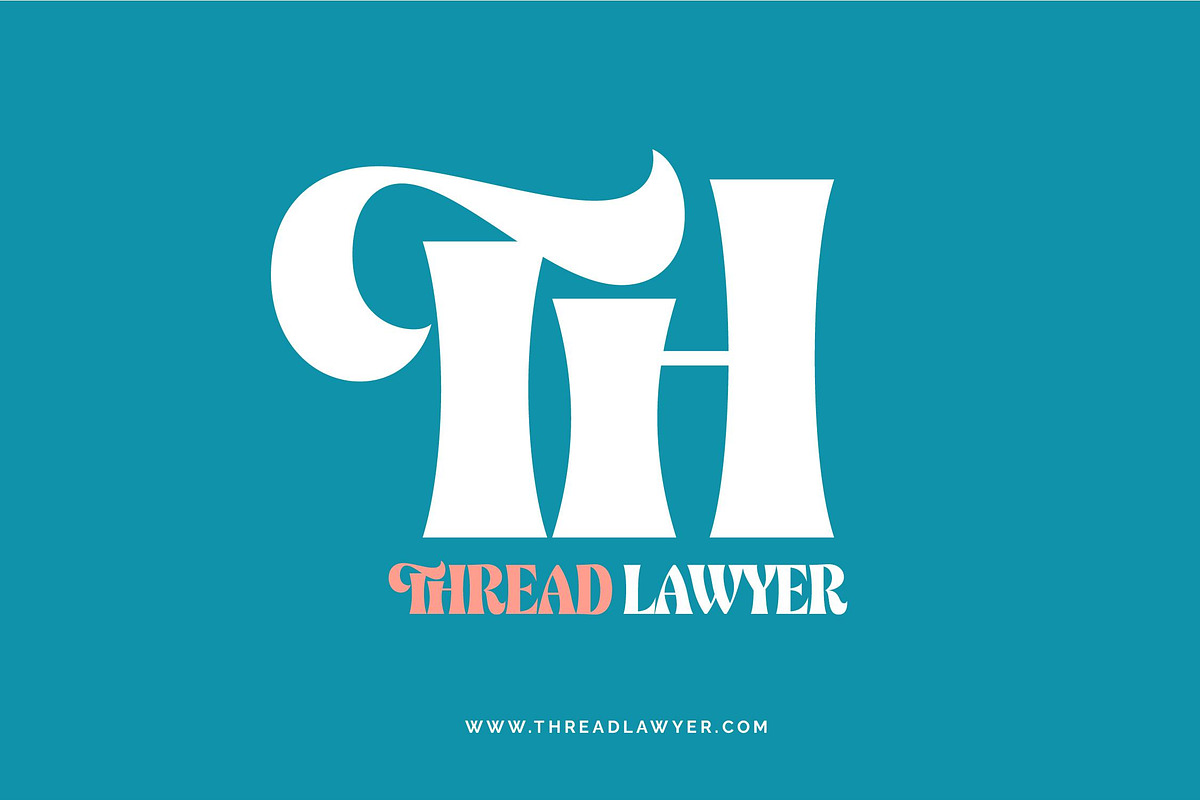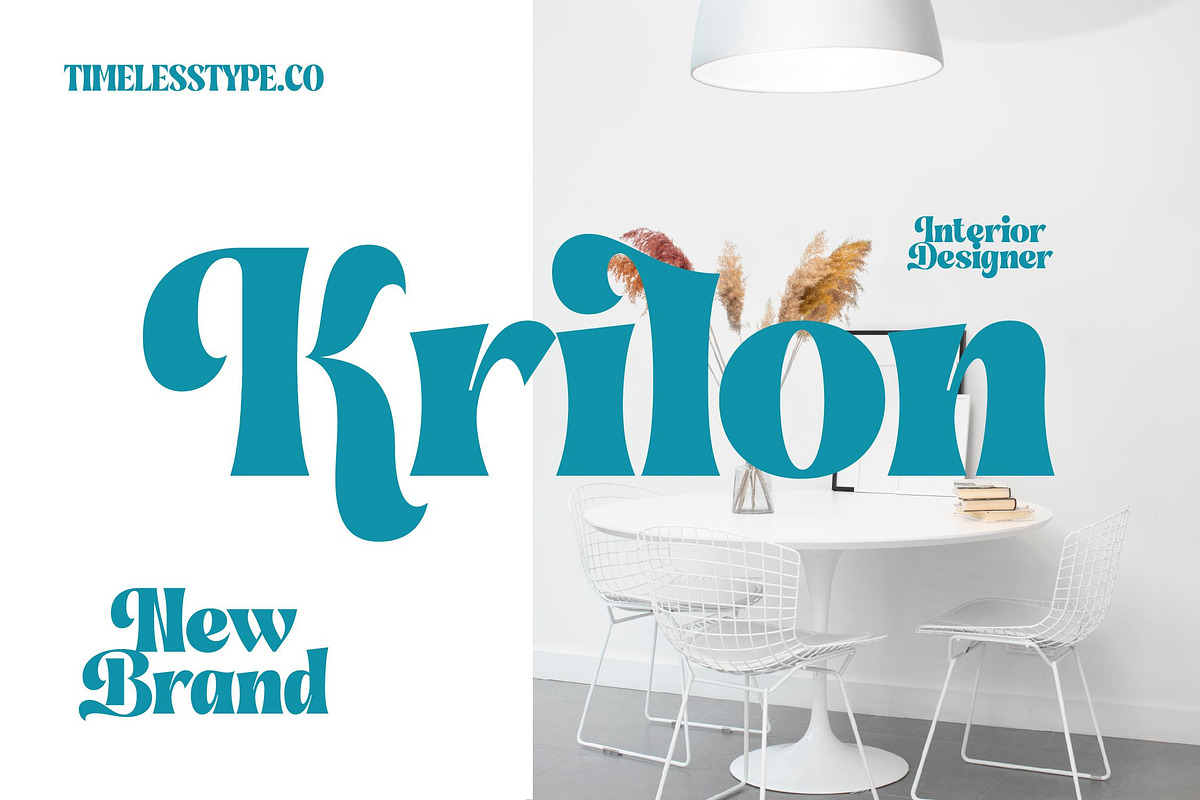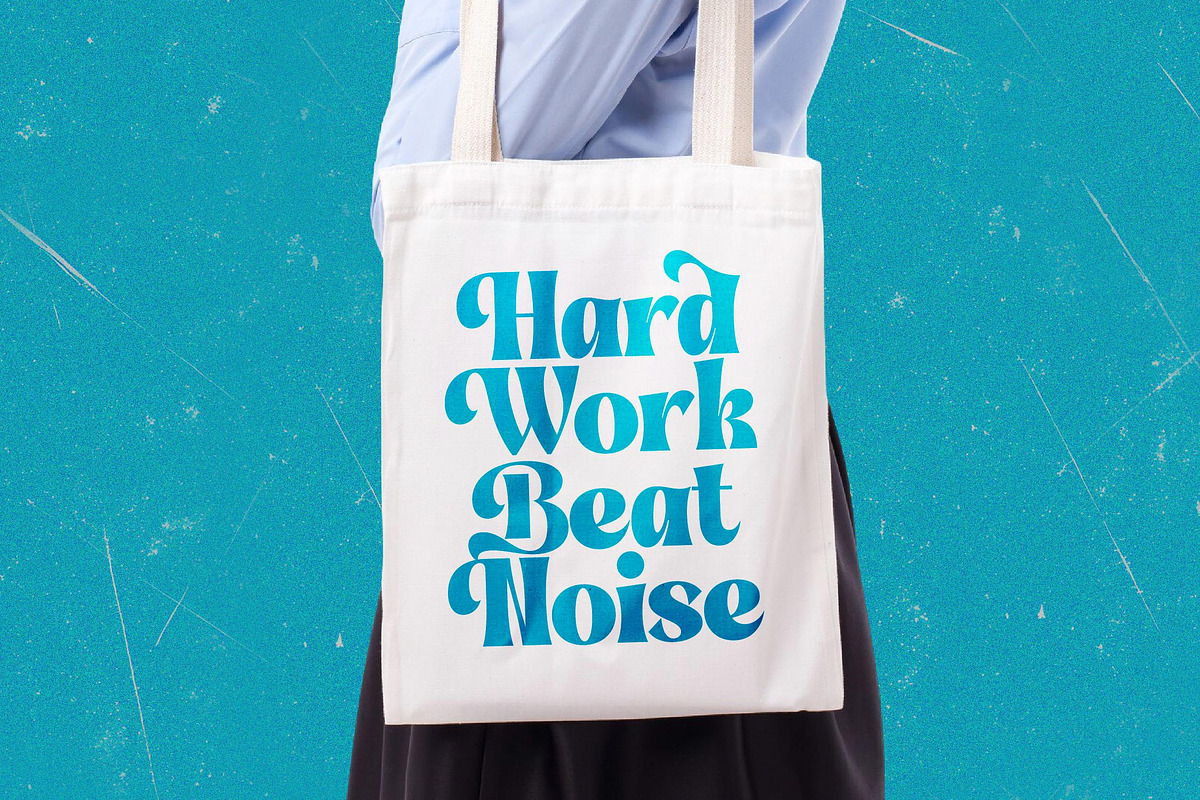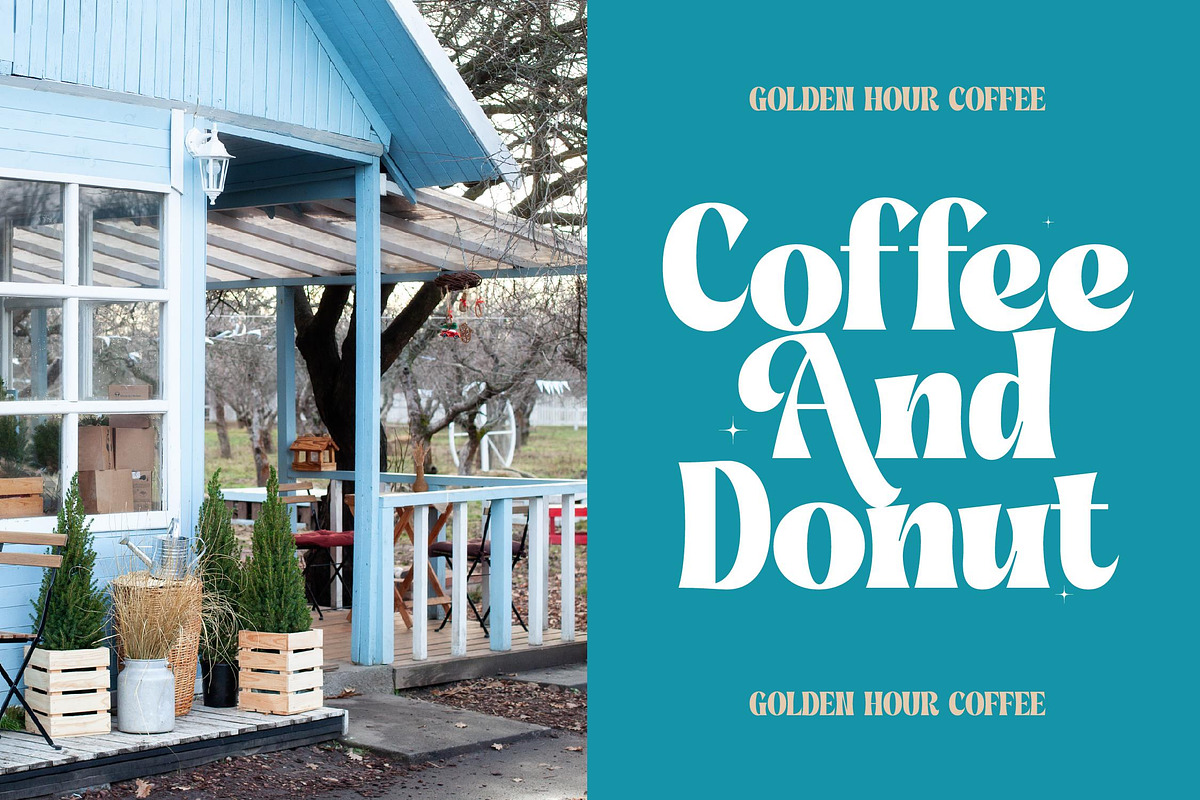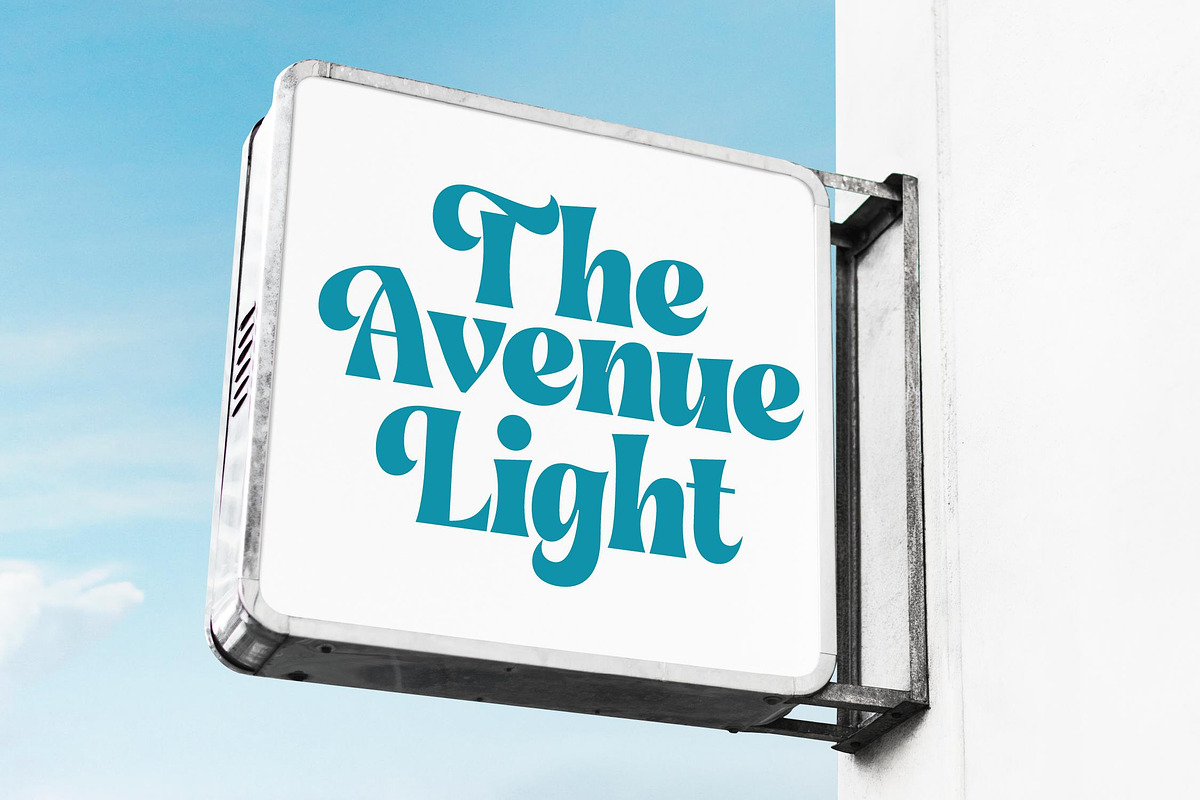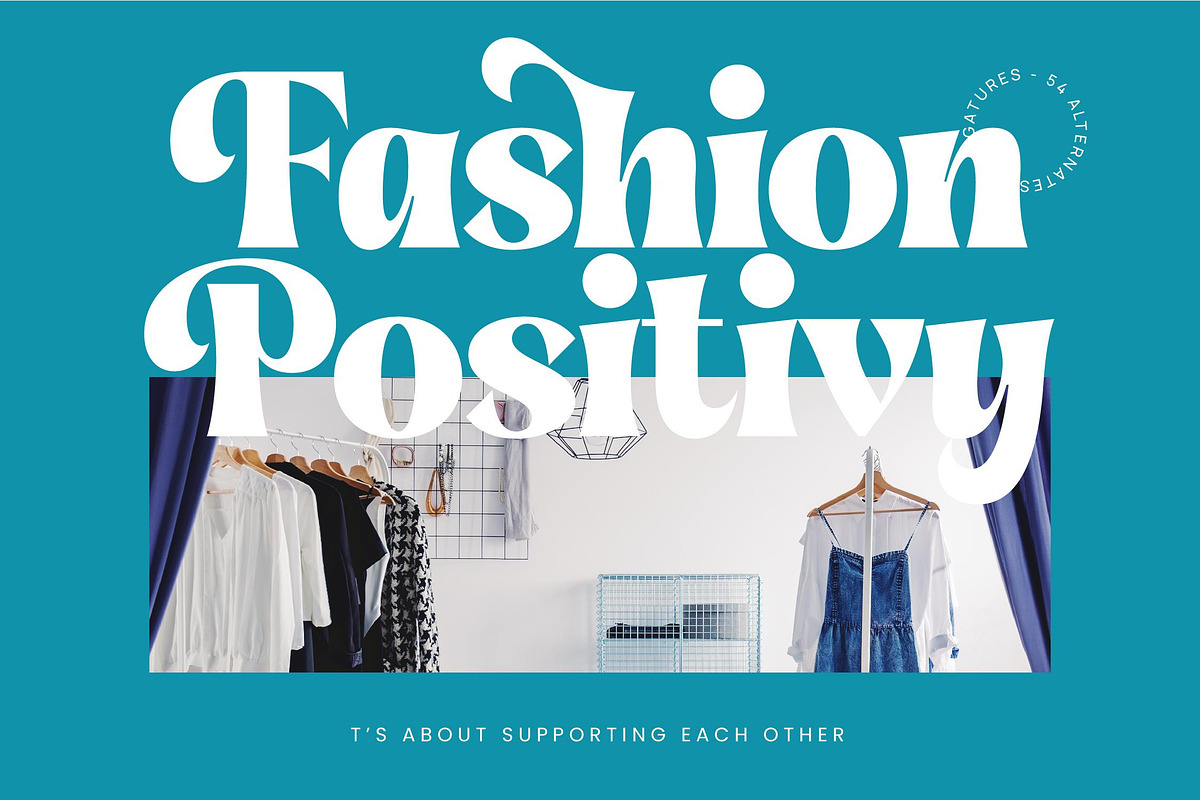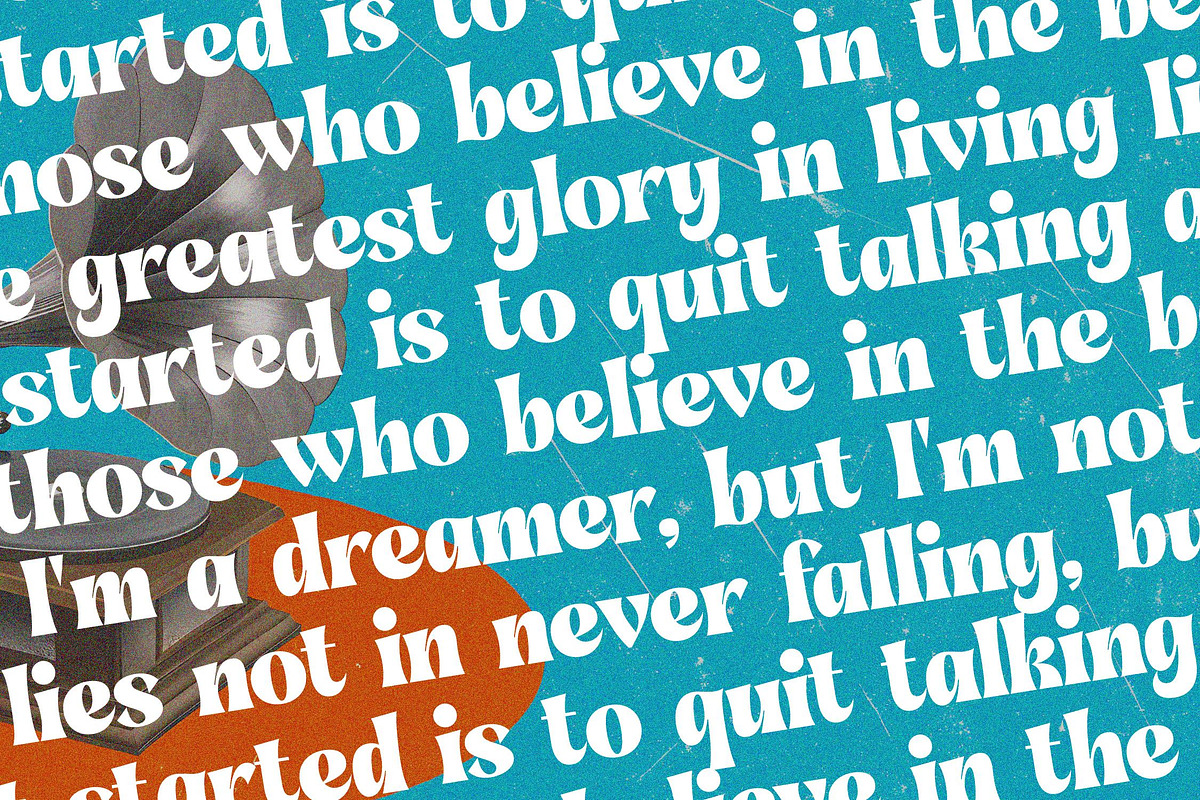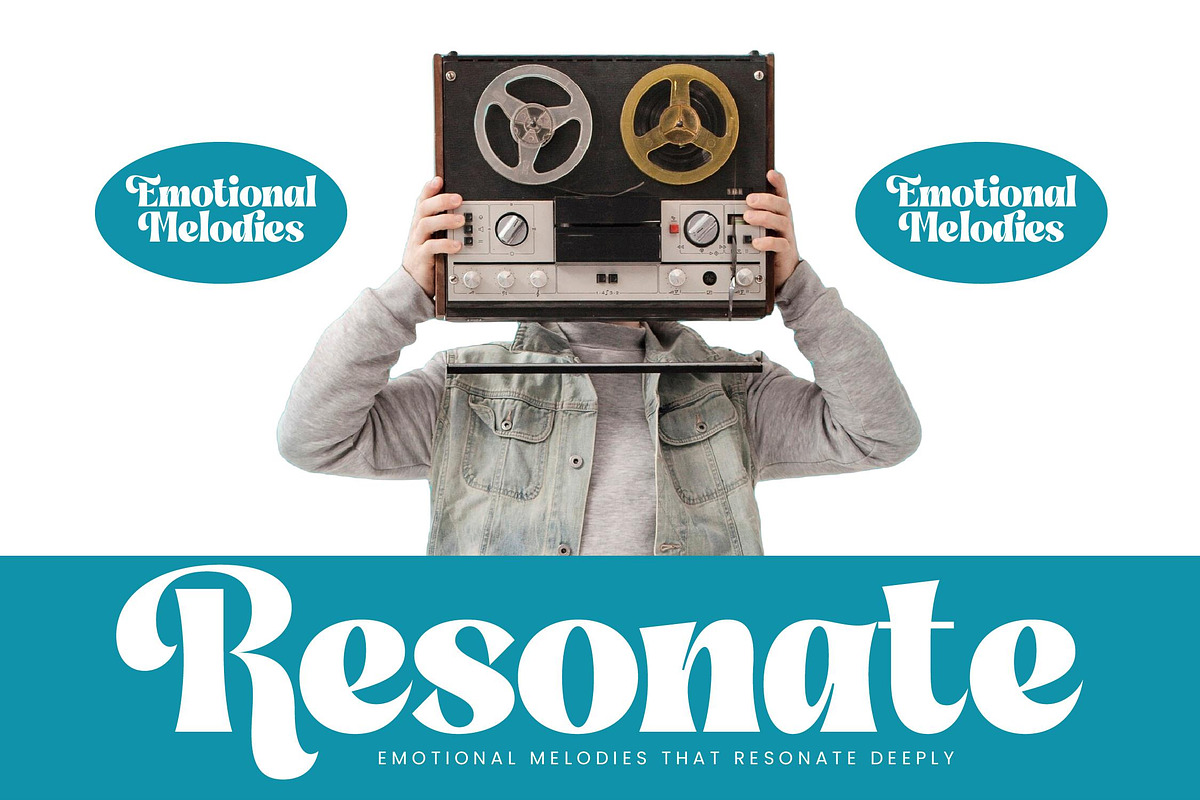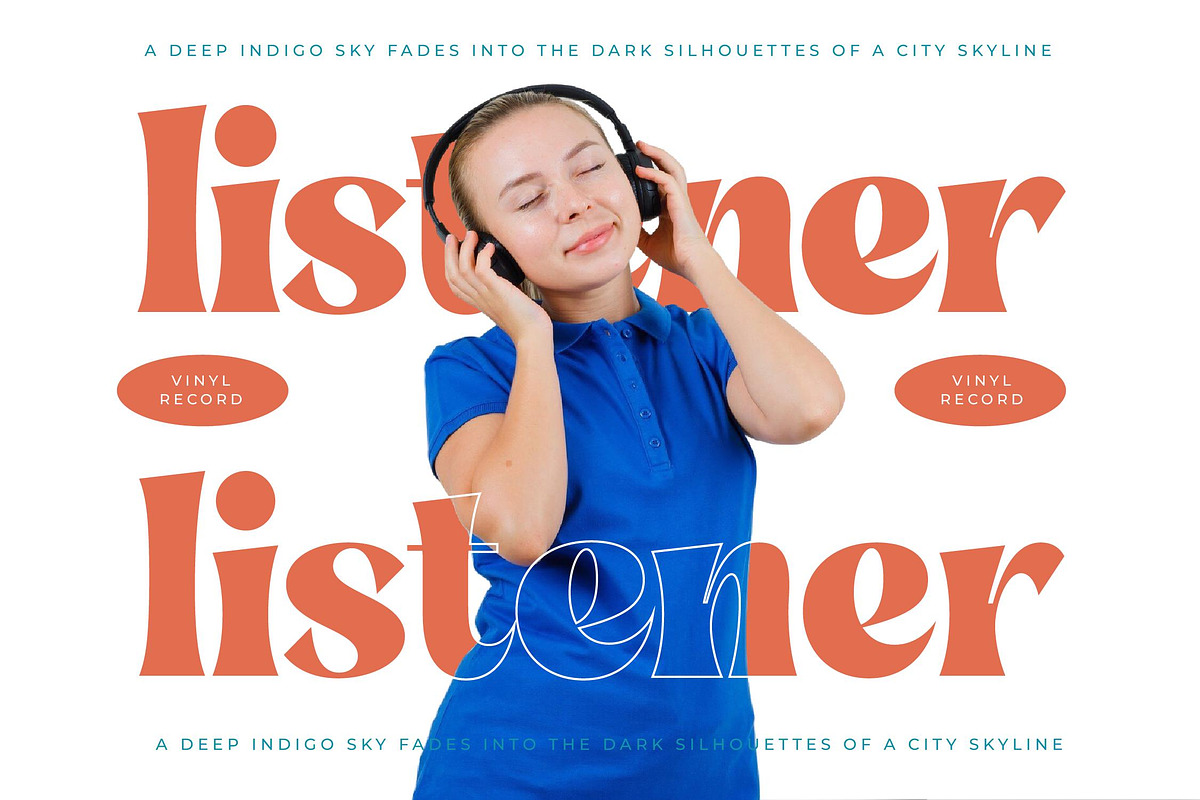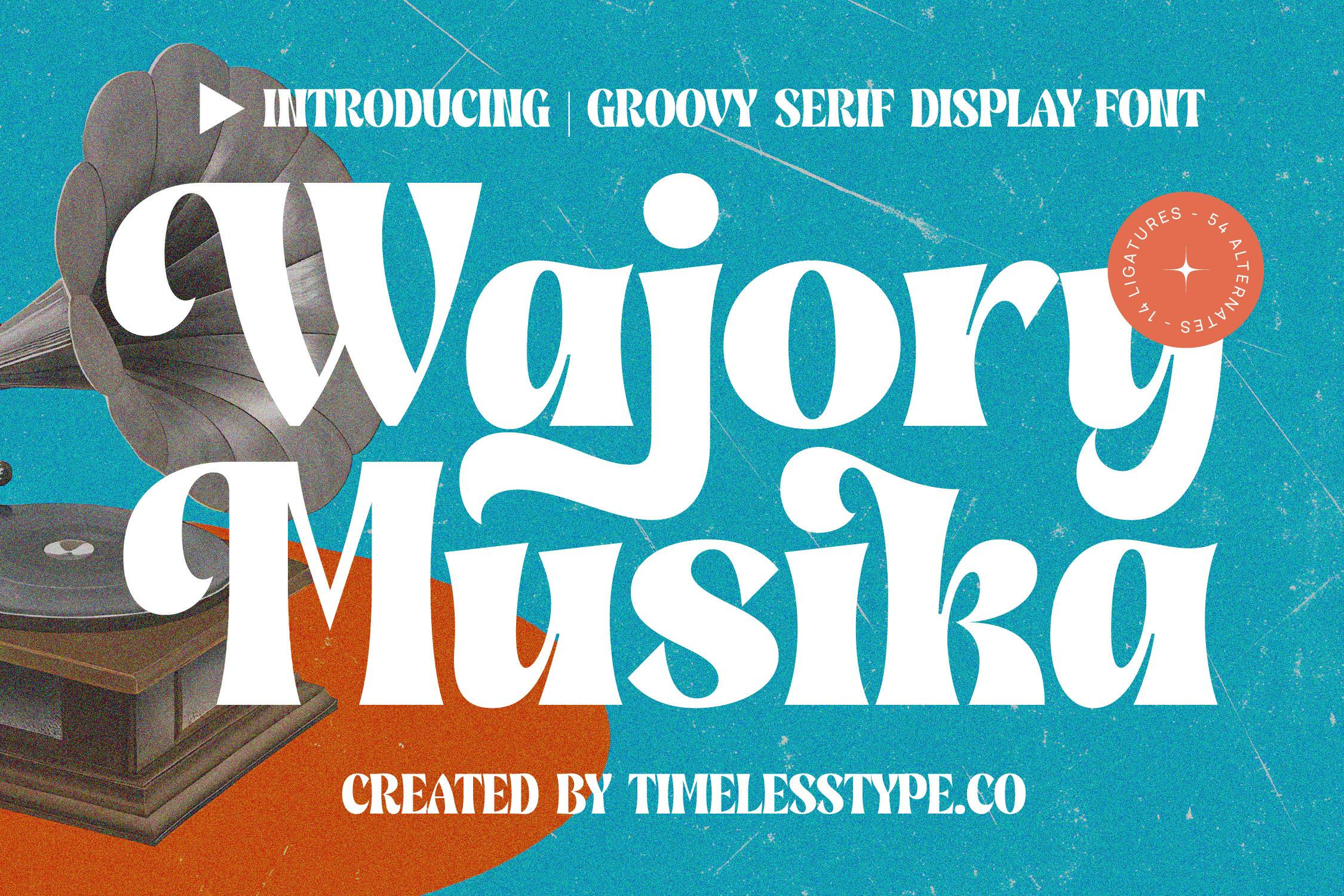
Wajory Musika Groovy Serif Font
Meet Wajory Musika, a rhythm-infused masterpiece that dances across the page with unparalleled grace and vintage soul. It is the ultimate expression of sophisticated nostalgia, designed to turn every headline into a melodic visual experience.
Inspired by the golden era of vinyl records and the groovy curves of the 1970s, this typeface captures the warm, crackling energy of a spinning gramophone. Its fluid lines and bold presence evoke the timeless charm of retro posters and high-fidelity aesthetics, blending classic musicality with contemporary flair.
This modern serif display demands attention with its striking high-contrast serif design and elegant, flowing forms. Engineered for branding impact, it functions as a high-end editorial font that bridges the gap between playful movement and luxury typography.
Perfectly aligned with the current modern serif trend, this typeface answers the call for character-driven typography in a sea of minimalism. It sits at the forefront of editorial display fonts, offering designers a unique way to inject personality and vintage warmth into digital and print spaces.
From high-end fashion spreads and boutique packaging to distinct logo design, this font is a versatile powerhouse. Its artistic curves are equally suited for wedding invitations, magazine editorial layouts, and cohesive brand identities that require a touch of retro sophistication.
This comprehensive set includes a vast array of ligatures and alternates to provide endless creative possibilities for custom lettering. It also features a full suite of international characters and multilingual support, ensuring your message resonates globally without technical limitations.
- Ligature 14 Alternate 54